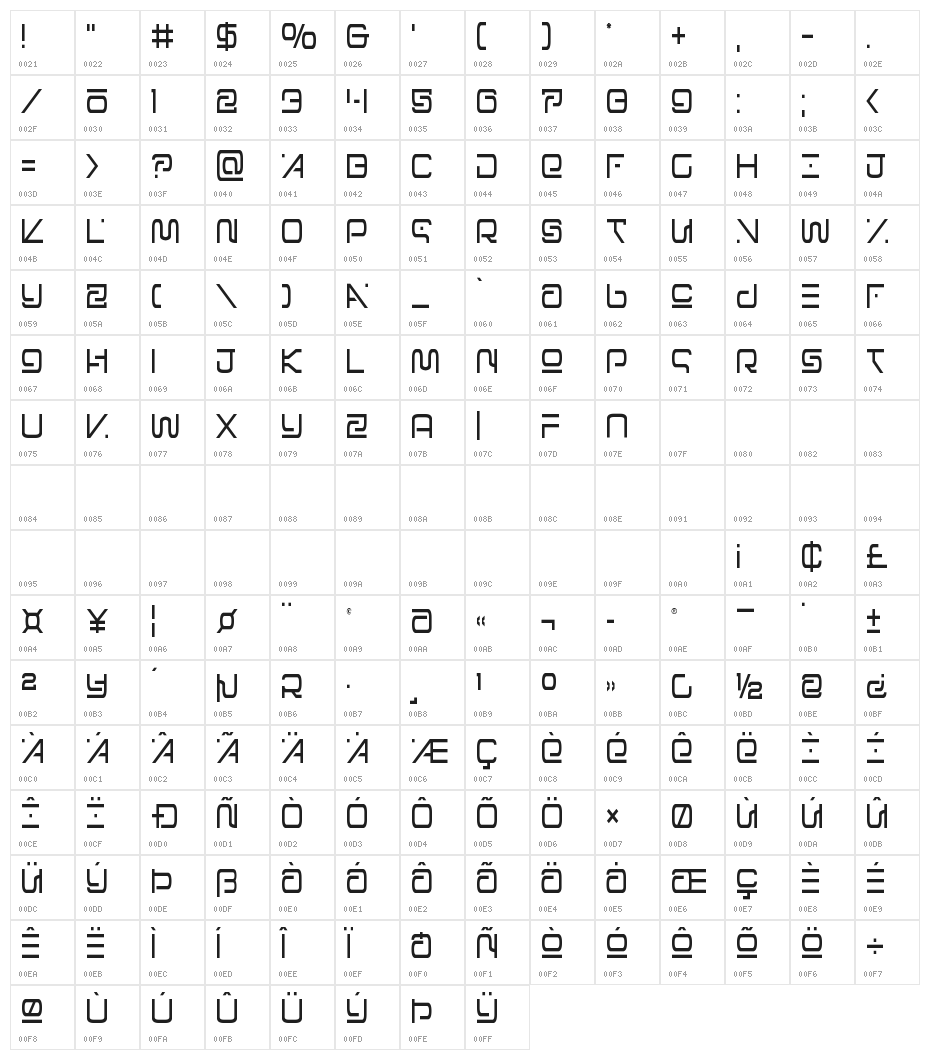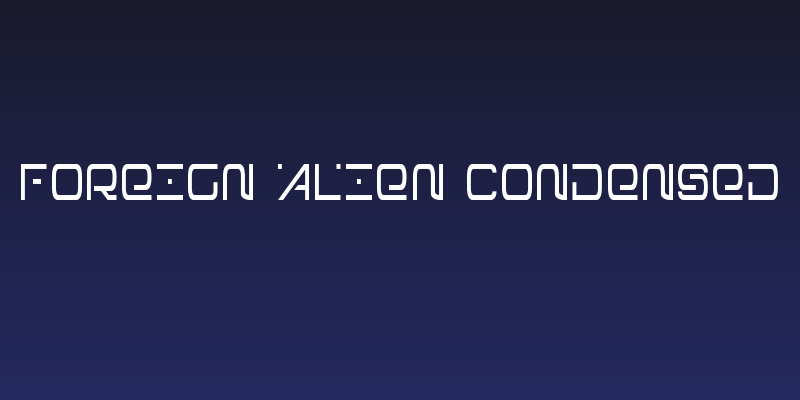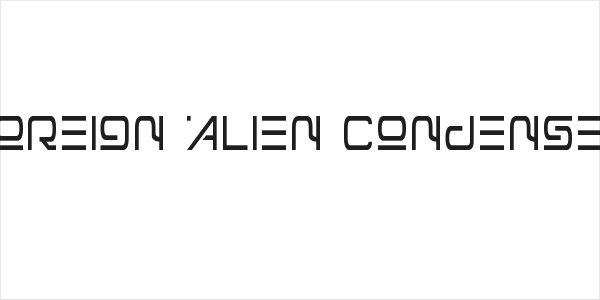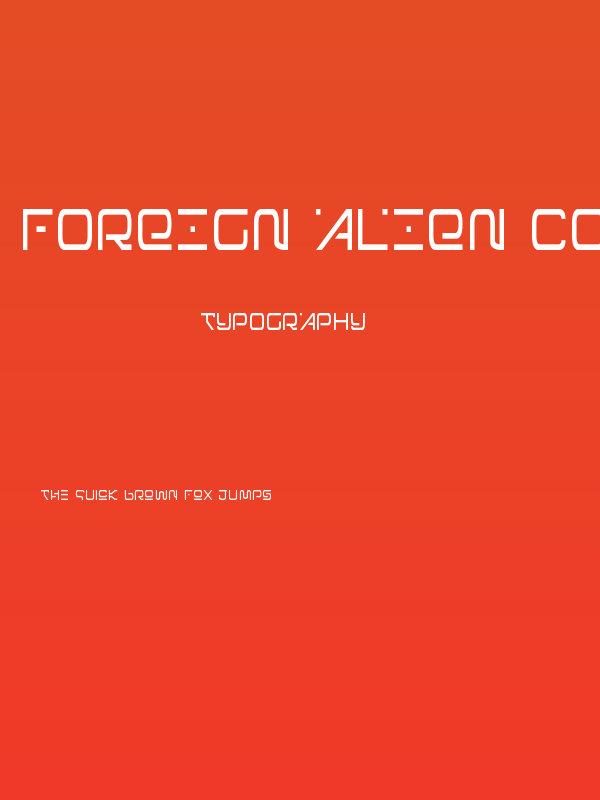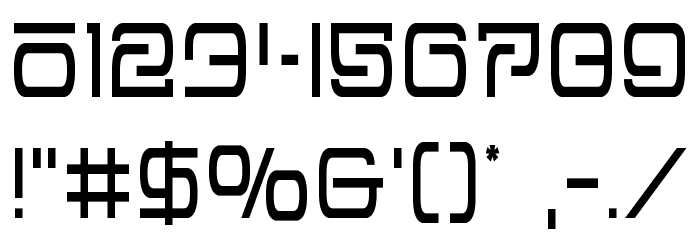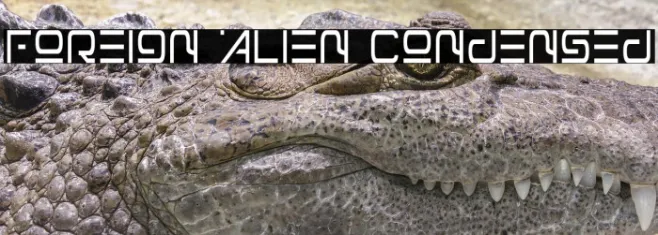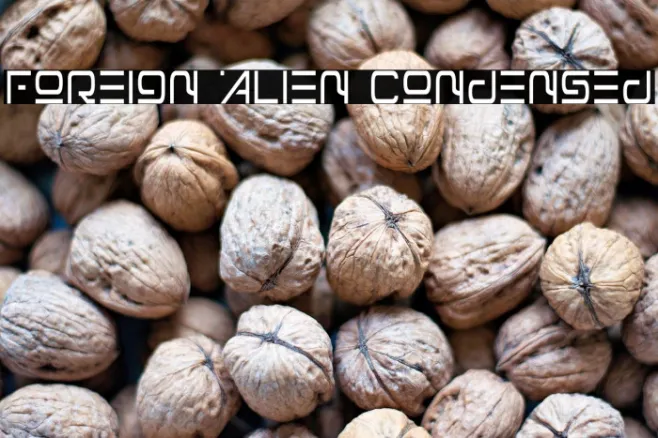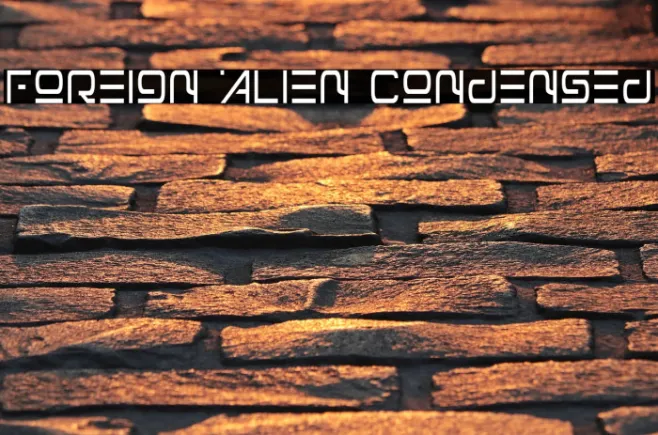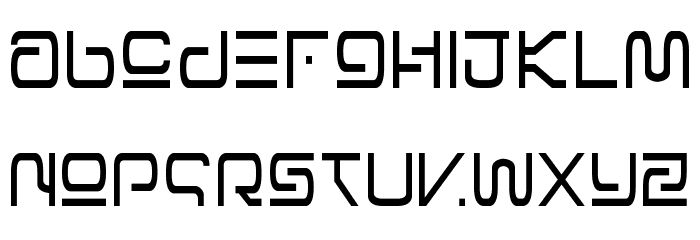
Foreign Alien Condensed Font
Foreign Alien Condensed Description
This font features a futuristic and geometric design, characterized by its condensed letterforms and unique angular cuts. The characters exhibit a consistent stroke width, contributing to a uniform appearance. The uppercase and lowercase letters share similar structural elements, enhancing the cohesive look. Numbers and special characters follow the same design principles, maintaining the font's distinct style. The overall aesthetic is modern and tech-inspired, making it suitable for projects that require a contemporary and unconventional typeface.
| Proposed Projects | Ideal for sci-fi themed designs, technology branding, video game interfaces, and modern posters. |